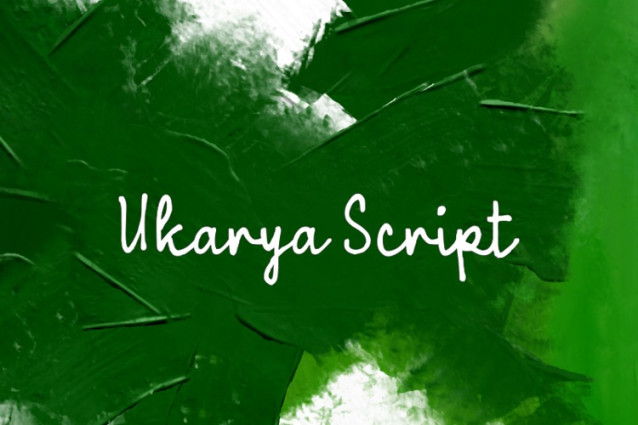
Ukarya Script Font
Ukarya Script Font, is a simple and friendly handwritten font. Its natural and unique style makes it incredibly fitting to a large pool of designs. The only limit is your imagination!